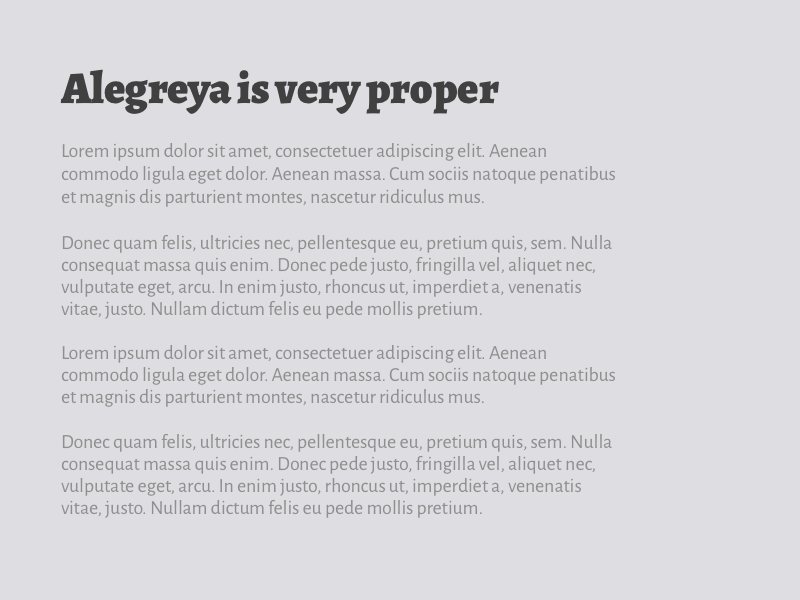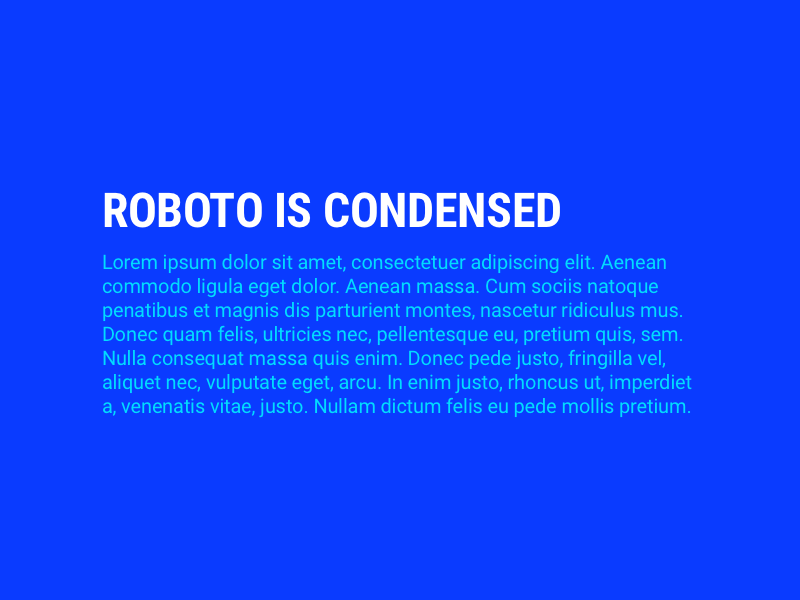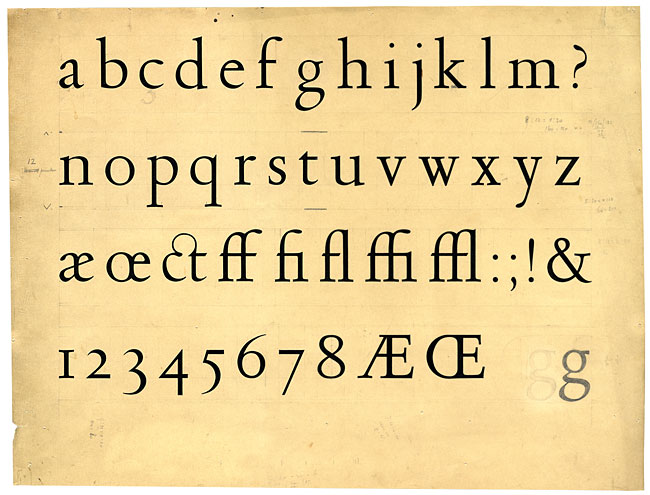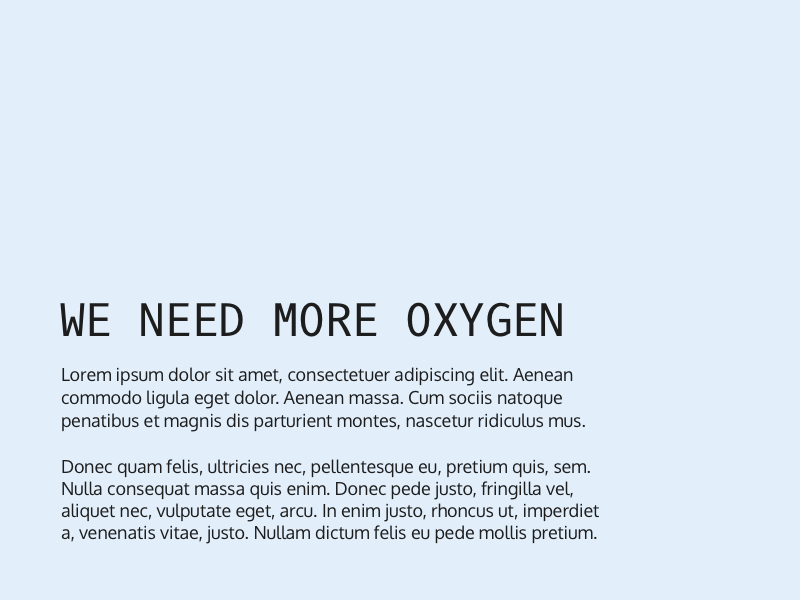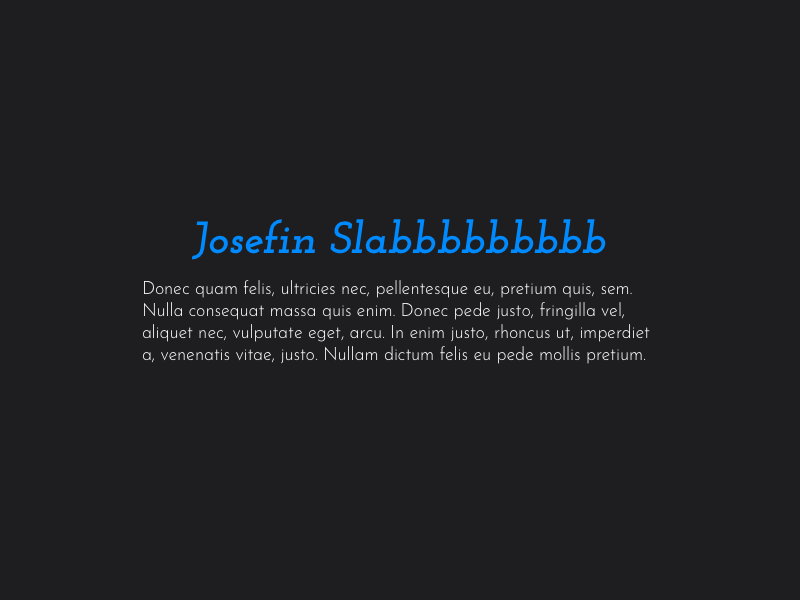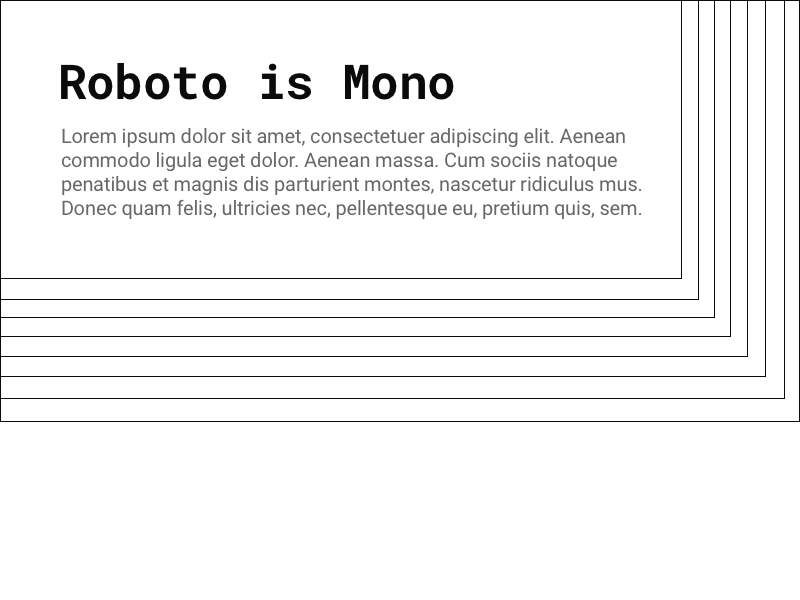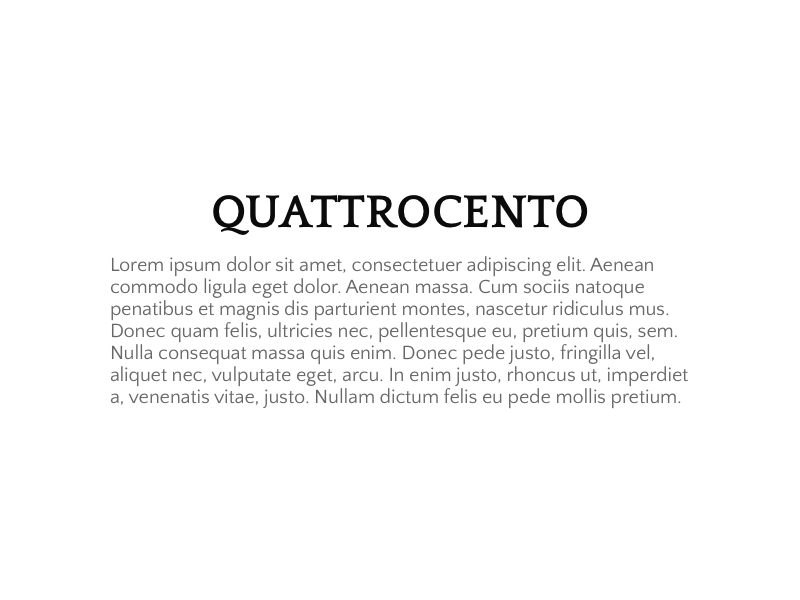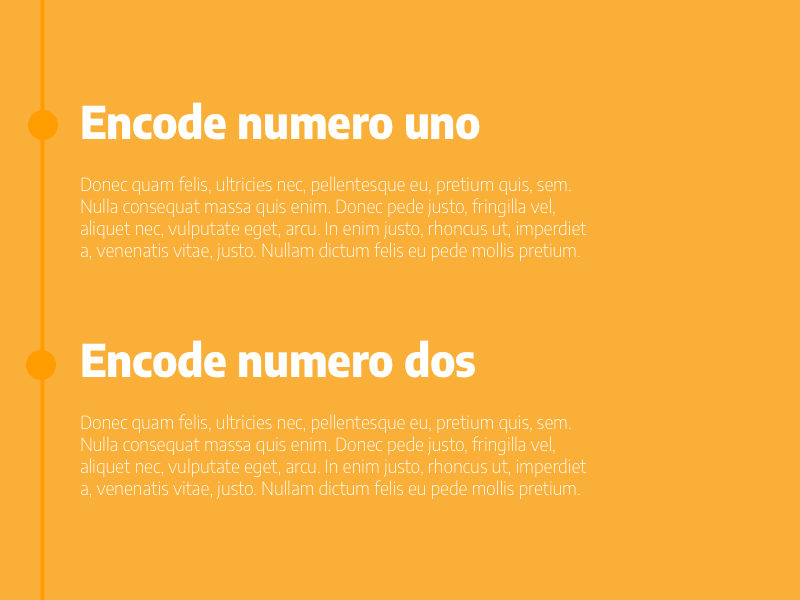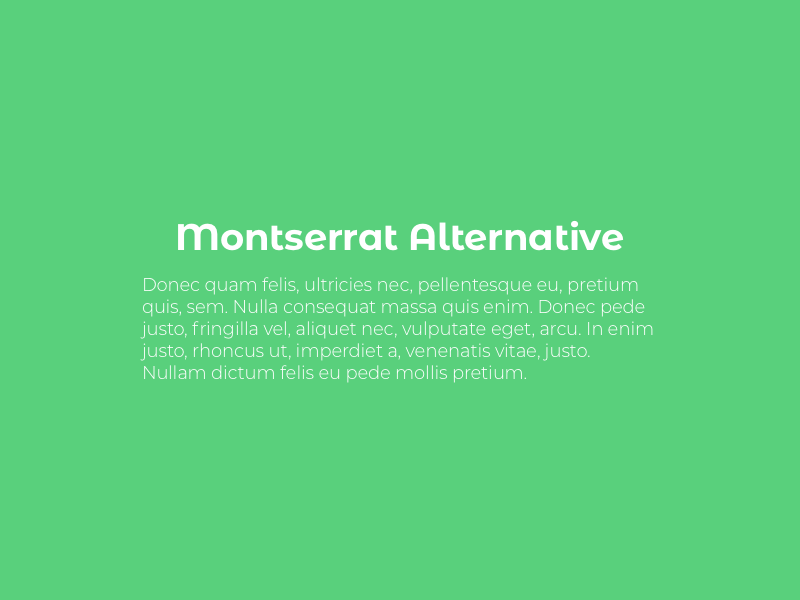
What is a font superfamily?
Are we talking about the Jacksons? The Kardashians? The Brady Bunch? Steve Martin’s fictional family in Cheaper by the Dozen? Or could we be talking about something more closely related to fonts?
Answer: WE TALKIN’ ‘BOUT FONTS, Y’ALL ⚡
A font superfamily is set of typefaces (example: merriweather and merriweather sans) that have been specifically designed to look good together. Like a musician who plays separate notes simultaneously to create one melodious chord, type designers create font families that stand out individually, but also gloriously combine to offer versatility in style and weight that makes the content on the page more visually appealing and easier to read.
Think of it this way: a superfamily has one mannequin (underlying skeleton form) that can be dressed in many different sets of clothing (serif, width, weight, size, italic). The result: pre-packaged, visually cohesive fonts that are begging to be used together for your next design project. In other words, superfamilies are big, juicy apples waiting to be picked.
Where did they come from?
The earliest evidence of superfamilies come from Roman documents all the way back in 79 AD. These Roman documents contained variations in the size of text to create a visual hierarchy. The Romans were making their title text bigger than their body text before it was cool.
Fast forward to the 1800’s, and there are typefaces being designed to be compatible across different written languages such as Latin, Greek, and Cyrillic. These were the some of the earliest prototypes of the superfamilies we know and love today.
By the 1900’s, there was an explosion of the variety of sans-serif typefaces, thus expanding the possibilities for variations across all superfamilies. During the years leading up to WWII (yes I just dropped a WWII reference in an article about typography 😂), world-renowned Dutch type designer Jan van Krimpen designed the first comprehensive set of typefaces with inherent compatibility, a project called Romulus.
In his own words, he set out “to create a complete type family, consisting of, to begin with, roman, sloped roman, semi-bold and semi-bold condensed, at least four weights of sans serif, a script type and a set of Greek characters.”
This was the most ambitious type design project to date, and while he didn’t complete it following the war, it was the beginning of what is now commonplace in type design: the superfamily.
Here are 10 Google Font superfamilies you should know about
We’ve discussed what they are, where they come from, and why you should use them. Now let’s see some real-life superfamilies in action. Here are some great pairs from Google Fonts superfamilies to use for your next design project!
Designed by Impallari Type
Designed by Christian Robertson
Designed by ParaType
Designed by Vernon Adams
Designed by Paul D. Hunt (Sans) and Frank Grießhammer (Serif)
Designed by Santiago Orozco
Designed by Impallari Type
Designed by Huerta Tipográfica (Alegreya) & Juan Pablo del Peral (Aleygra Sans)
Designed by Julieta Ulanovsky
Finding a beautiful font pair for your next project doesn’t need to be stressful, painstaking, time-consuming, or difficult. Superfamilies are DESIGNED to look beautiful together and create visual harmony for your webpage. Learn to know and love them and you’ll be a great designer in no time!